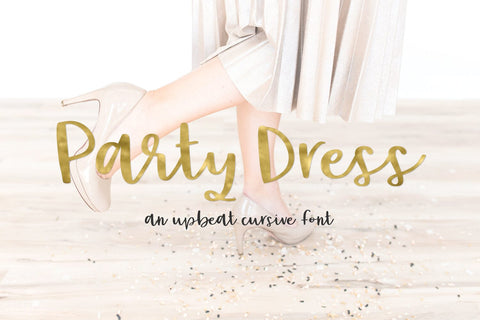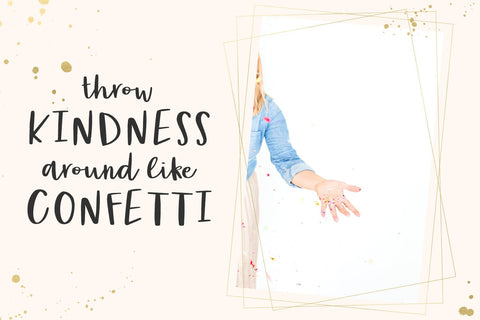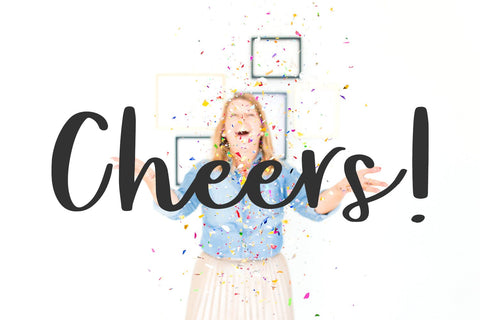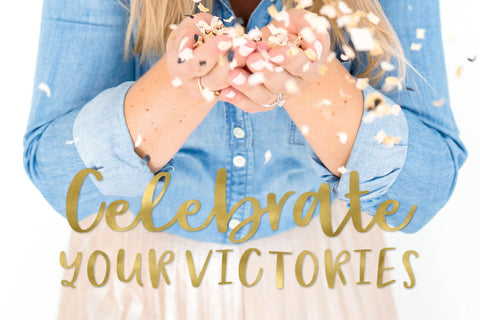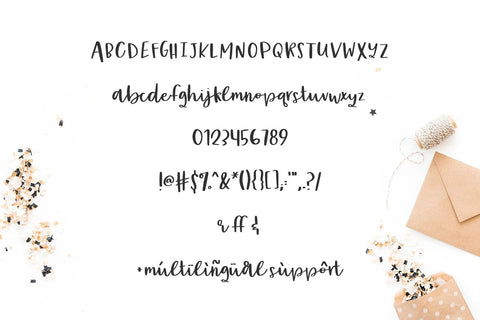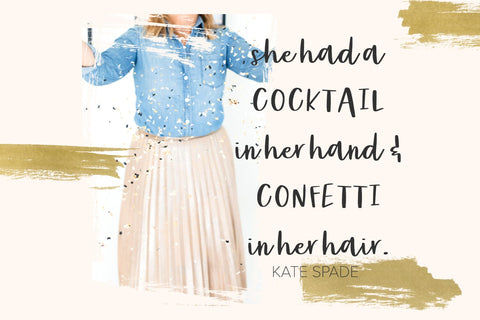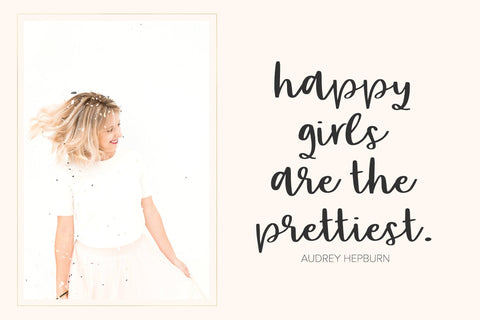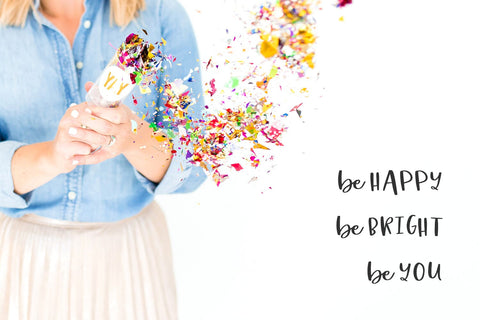
Party Dress Cursive Font
Introducing Party Dress, a hand-lettered script font perfect for every upbeat & celebratory occasion imaginable! Party Dress features clean, easy to read lettering that looks good in all caps, all lowercase, or a combination of both. Use for quote graphics, invitations, branding, and more.
Party Dress includes punctuation & Western European language support.